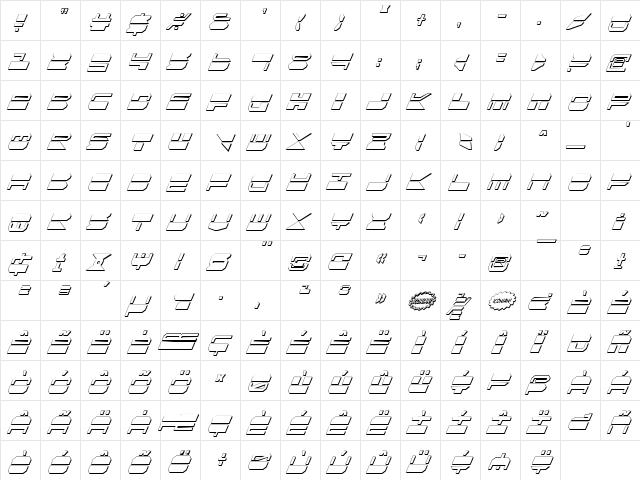
Quickmark Cond Shadow Ital Font Preview
Quickmark Cond Shadow Ital Cond Shadow Ital
Design Context for Quickmark Cond Shadow Ital Typeface
Quickmark Cond Shadow Ital brings ornamental detail and strong personality to headlines and identities, where visual impact matters more than quiet functionality.
Font Pairing: Pair with a clean neutral sans-serif for body copy to let Quickmark Cond Shadow Ital's character lead without overwhelming the composition.
Pro Tip: Treat Quickmark Cond Shadow Ital as the centrepiece of your typographic hierarchy. One strong heading set in a decorative face can carry an entire layout.